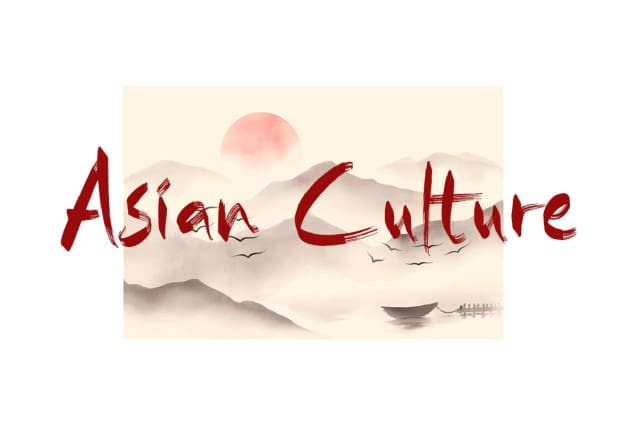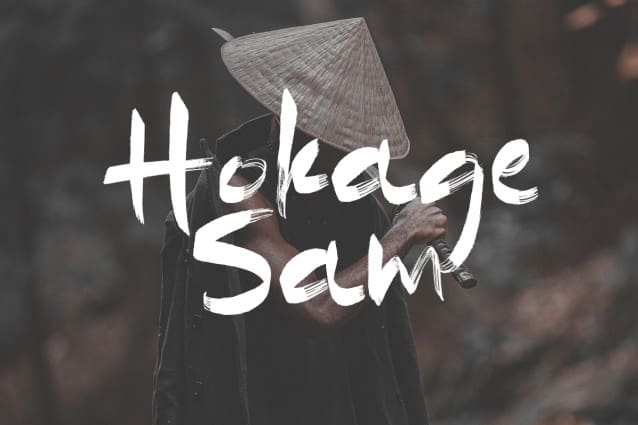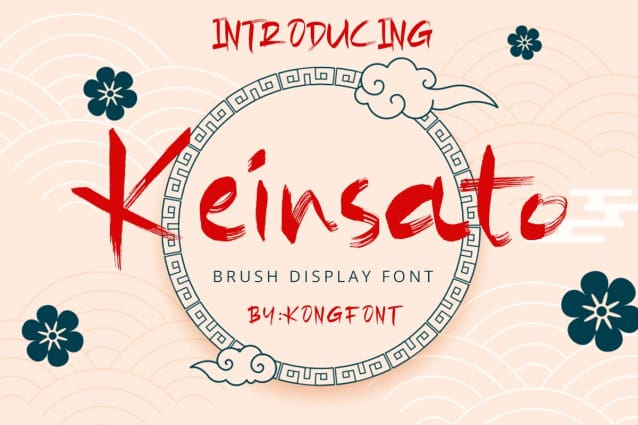
Keinsato Brush Font
Keinsato Brush Font – Modern Brush Font was created to bring something different to Brush Font fans. This font has characteristics like an elegant font but is written using a brush. This results in incomplete strokes across most of the body of the letters. Even so, this font can be easily distinguished between letters. The Keinsato Brush Font – Modern Brush Font is illegible.
The Keinsato Brush Font – Modern Brush Font is modern. It exudes a firm and respected impression. This font is one of the best fonts for clothing item design. Its clean characteristics are very suitable to be combined with various clothing brands, such as jackets, t-shirts, and clothes. It can be a screen printing of text and brand tags to attract buyers.
Entrepreneurs can use the Keinsato Brush Font – Modern Brush Font to sell their products. This font can be used for writing on posters promoting their products. In addition to printed posters, this font can complement product photo catalogs created for online promotion on social media, such as Instagram and Facebook. So, The Keinsato Modern Brush Font is a digital and print font.